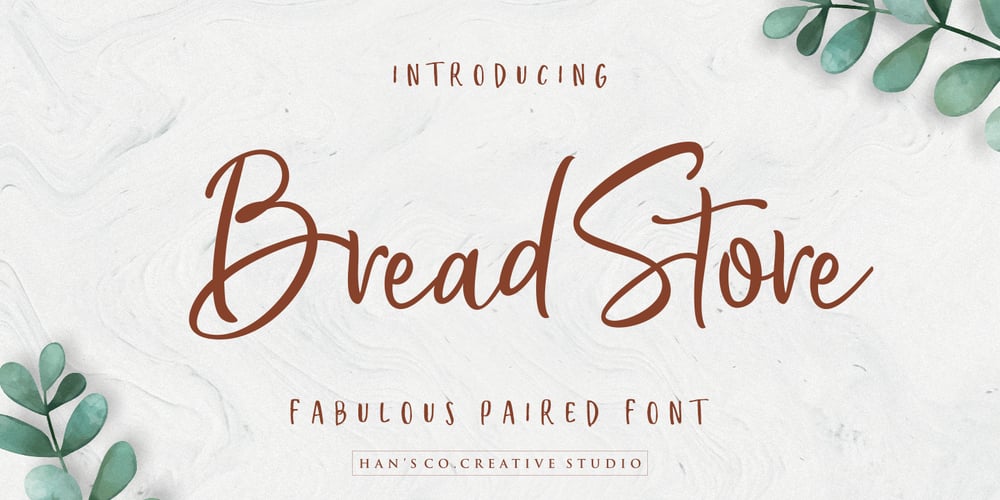
Bread Store Font Family was designed by Burhan Afif and published by HansCo. Bread Store contains 2 styles and family package options. Bread Store is a fun script font duo designed with an iconic curly and comical style. It perfectly represents elegance with its clean lines and modern swashes. Bread Store is the perfect font for making original and outstanding designs. Its casual charm makes it appear wonderfully down-to-earth, readable and, ultimately, incredibly versatile. Bread Store font will look outstanding in any context, whether it’s being used on busy backgrounds or as a standalone headline!Comes with a full uppercase, lowercase, numbers and punctuation + standard multilingual support. It’s great for branding, logo designs, lettering, logotype, craft, posters, packaging and much more. We recommend using Adobe Illustrator or Photoshop.